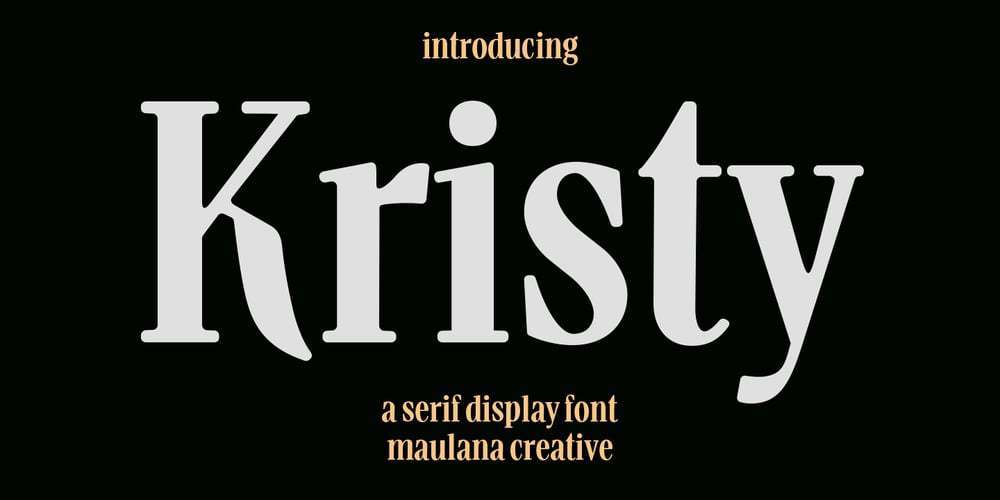
MC Kristy Font Family was designed by Gilang Maulana and published by Maulana Creative. MC Kristy contains 1 styles and family package options. Kristy is a modern display serif font. With Bold low contrast stroke, fun character with a bit of ligatures and alternates. To give you an extra creative work. Kristy font support multilingual more than 100+ language. This font is good for logo design, Social media, Movie Titles, Books Titles, a short text even a long text letter and good for your secondary text font with script or serif. Make a stunning work with Kristy font. Cheers,Maulana Creative